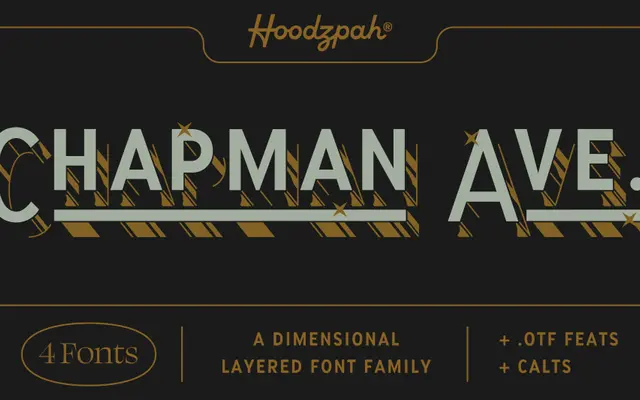
Chapman Ave
Fort Foundry · Amy Hood
A four-style layered display family by Amy Hood, offering chrome, shadow, fill and corner variants designed to be combined for dimensional headline effects.
Chapman Ave is an all-caps display family derived from Santa Ana Sans, rebuilt as a chrome-effect layering system across four styles: Chrome, Corner, Fill and Shadow. Styles can be mixed and matched to produce depth and dimensional effects, with OpenType stylistic sets and contextual alternates adding further variation. Specimen work by Hoodzpah suggests a primary audience in bold editorial, event and packaging design.
Chapman Ave is a dimensional, all-caps layered display family built for decorative headline use, with chrome, shadow, corner and fill styles designed to be mixed and stacked rather than used as a conventional text face.